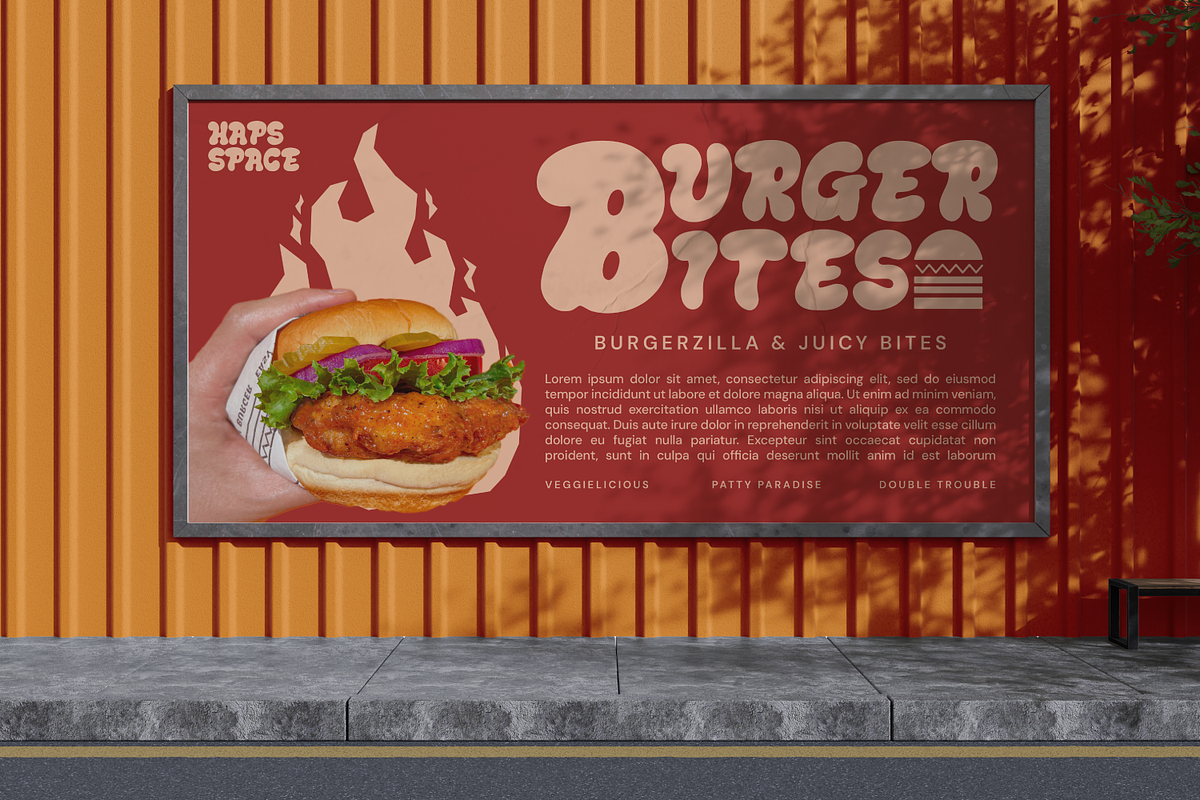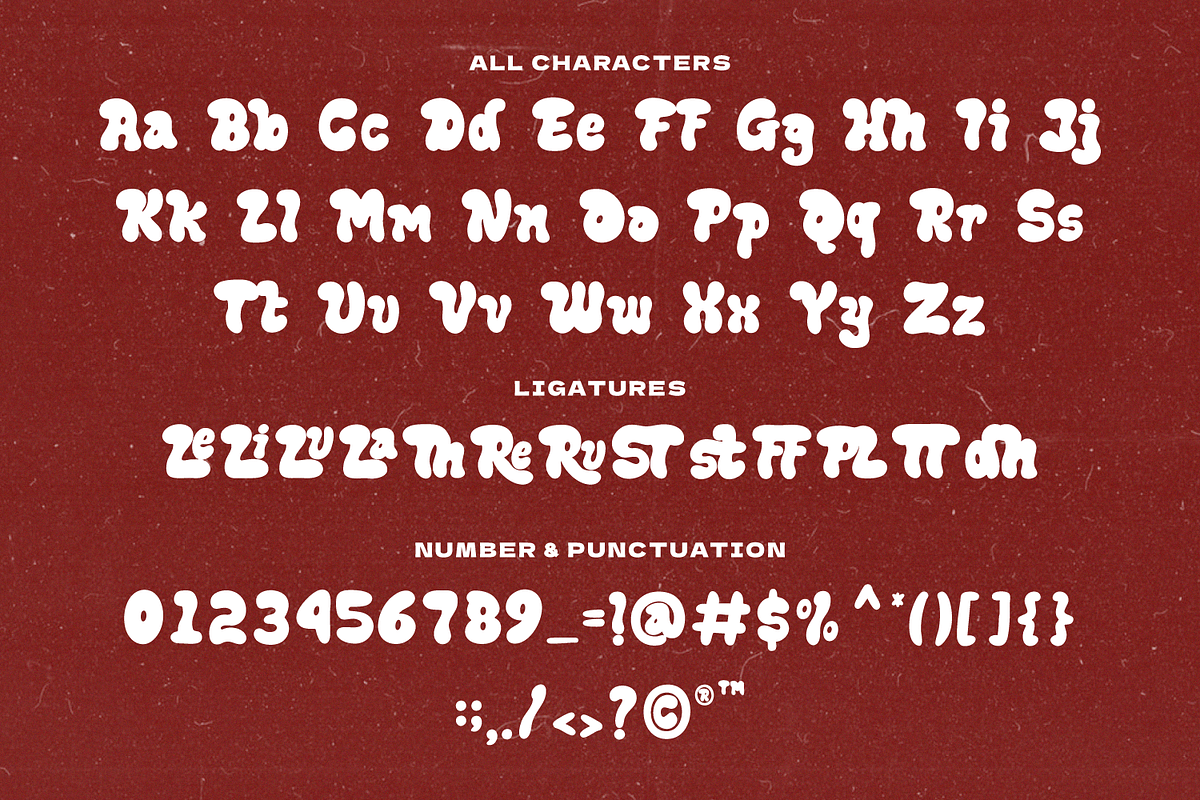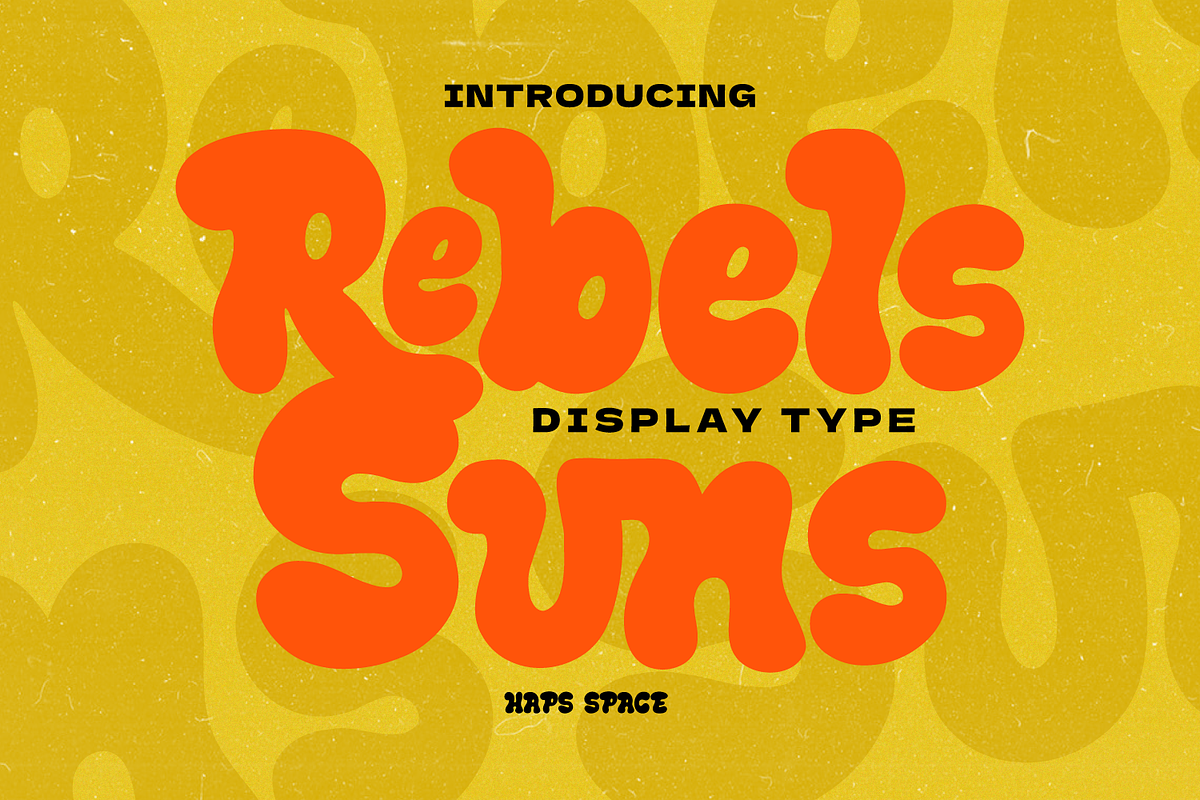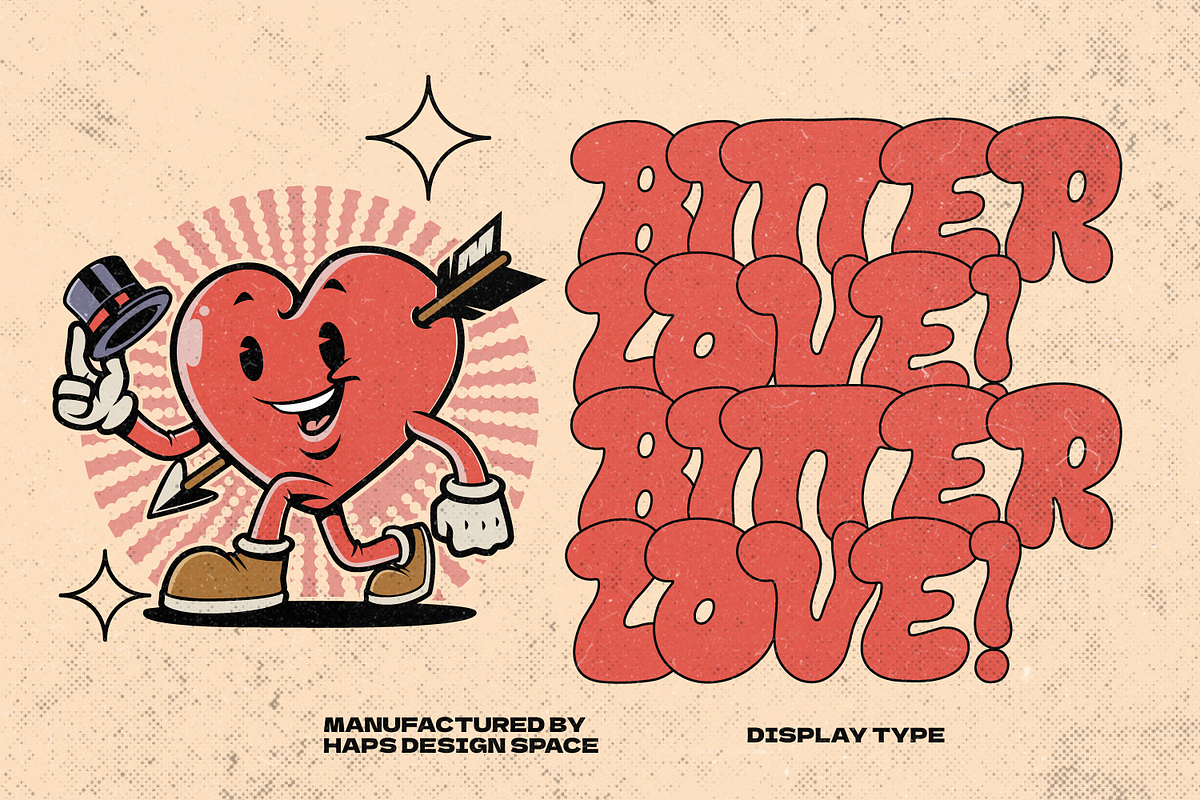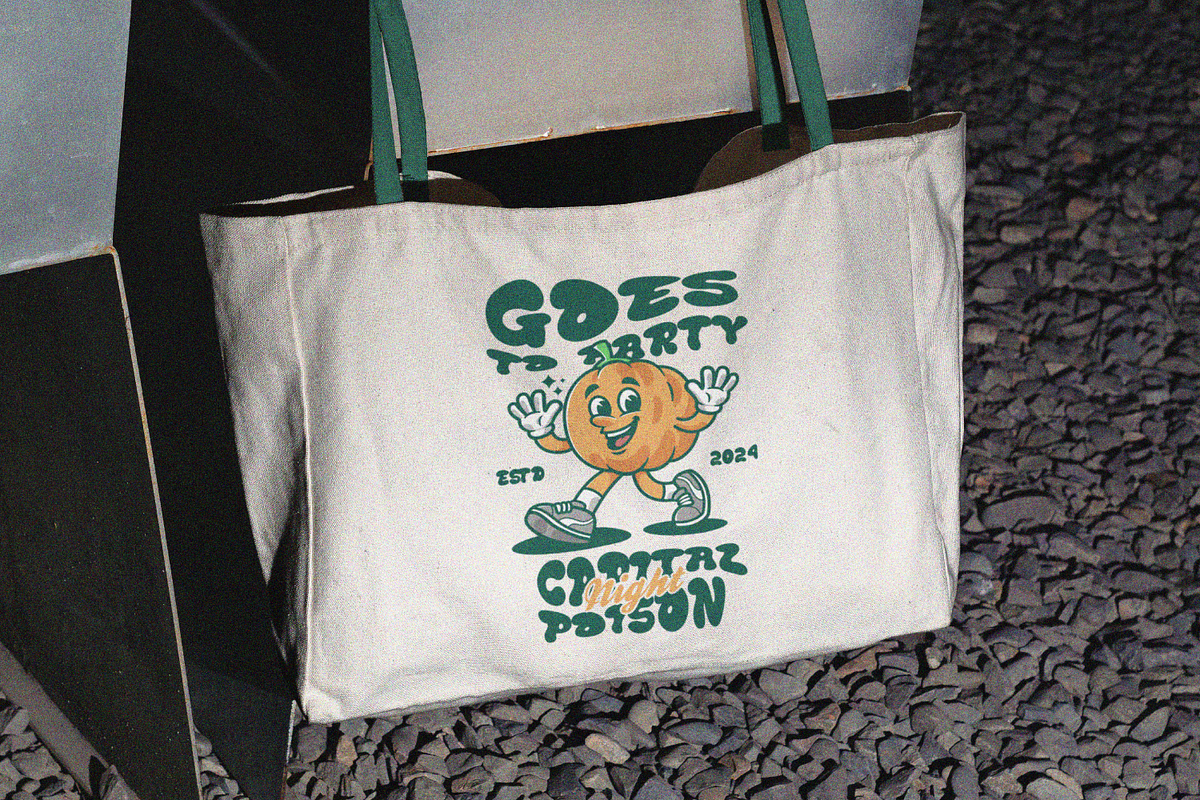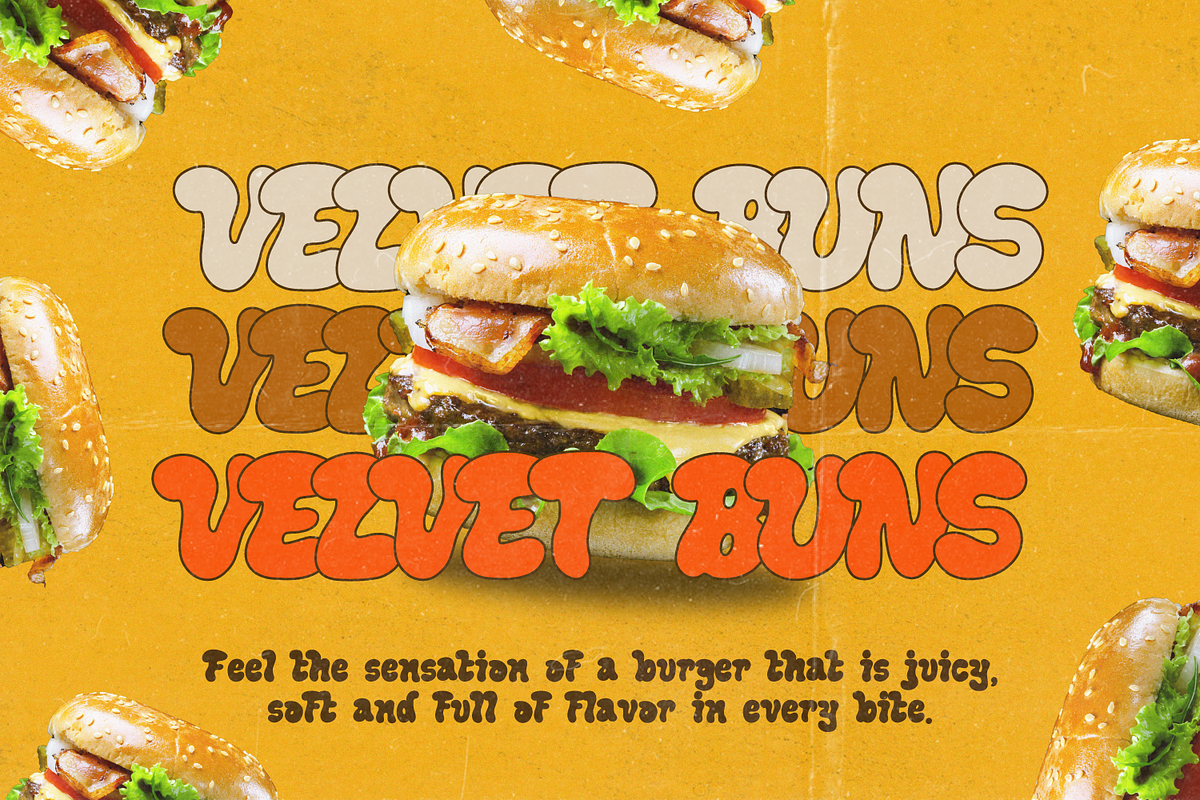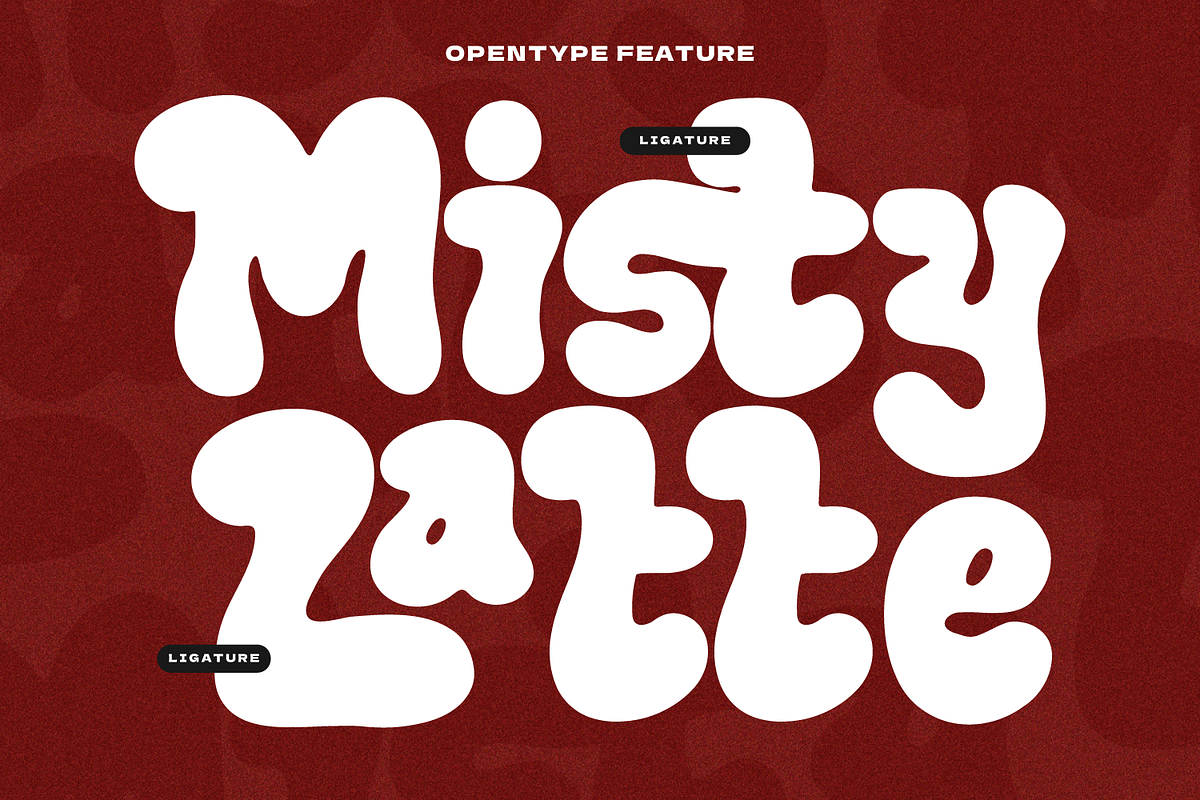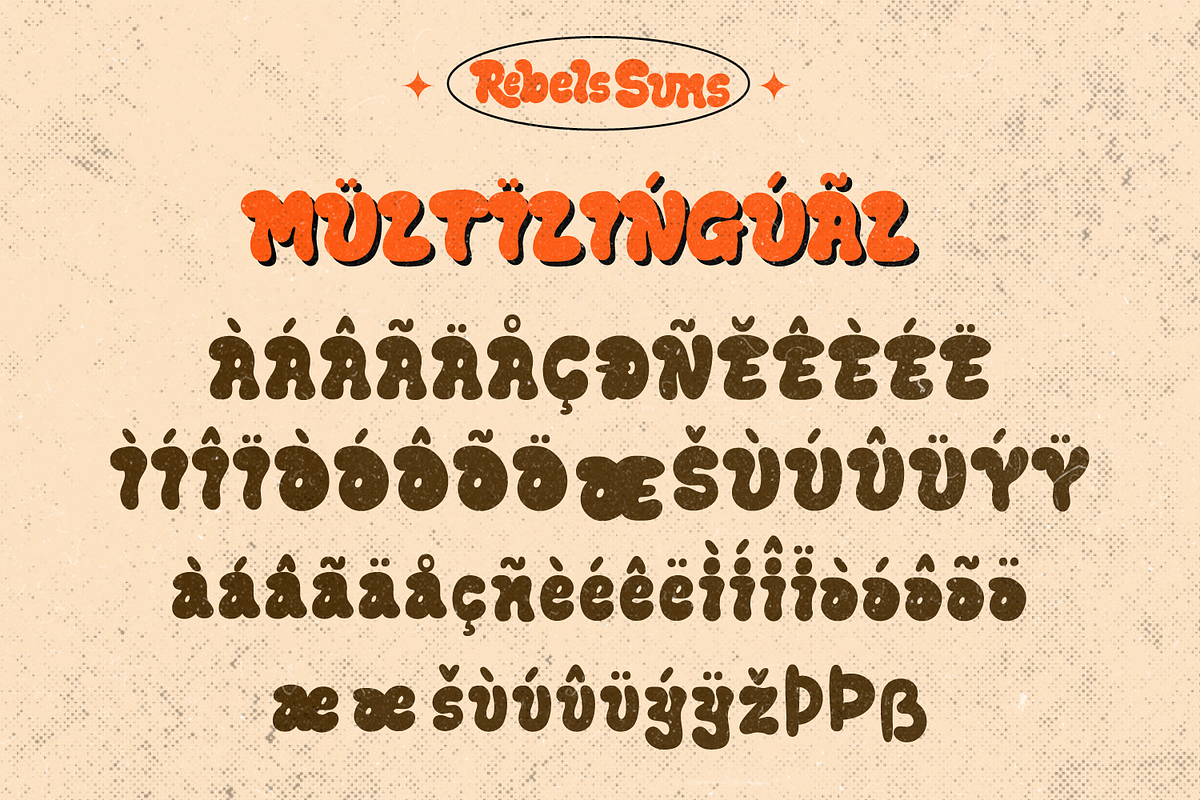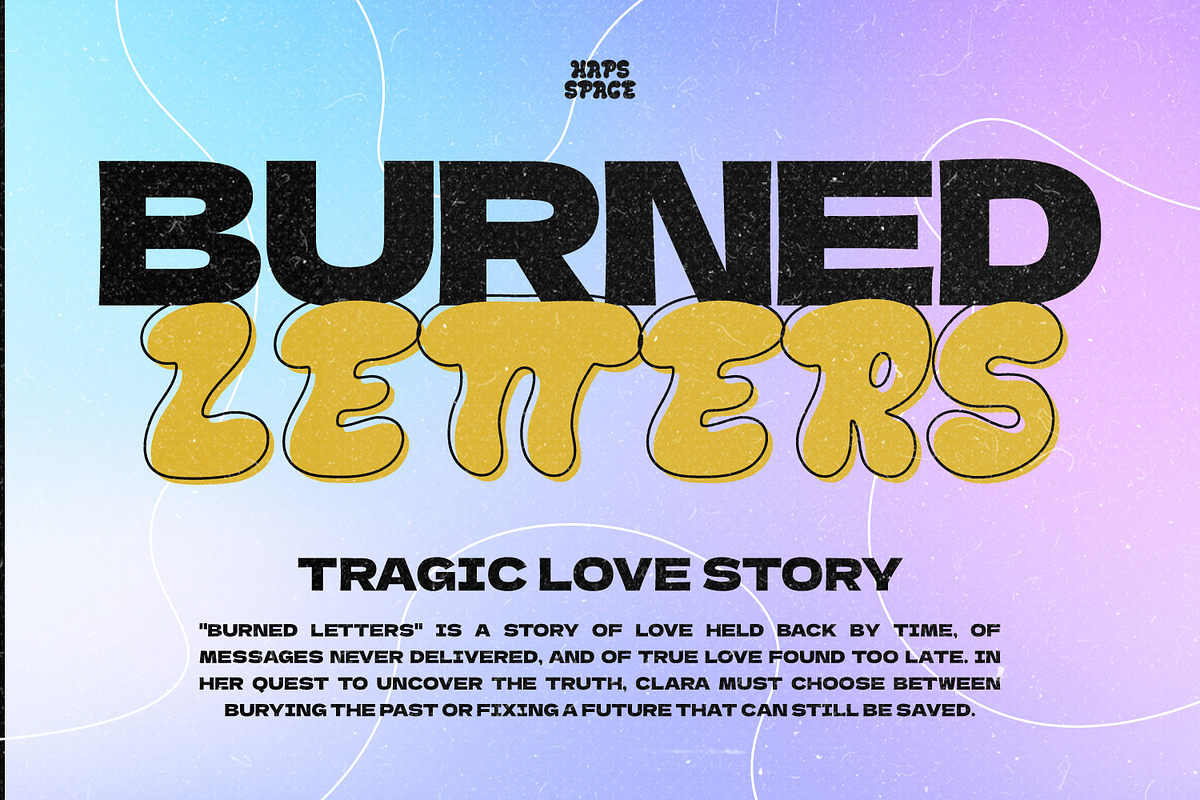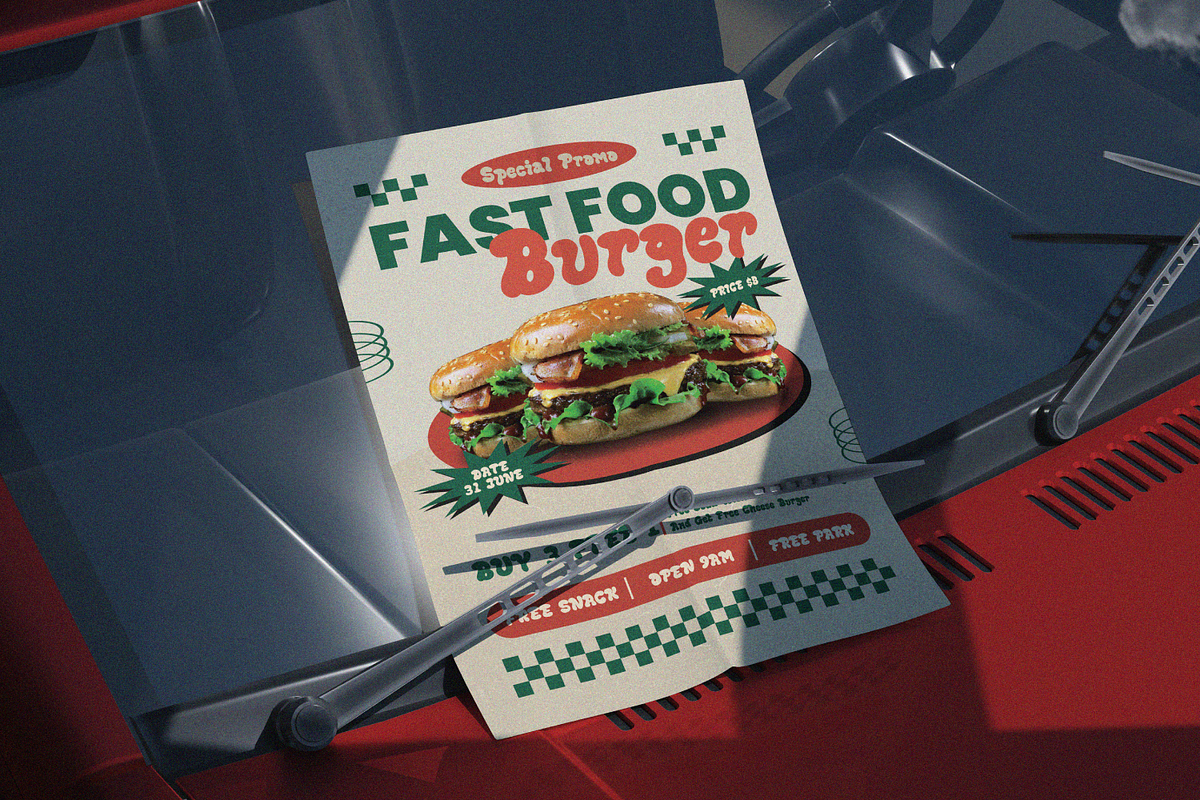
Rebels Suns Display Retro
Rebels Suns is a bold and playful retro display typeface that brings groovy vibes and funky attitude to your creative projects. Inspired by 70s psychedelic posters and bubble letter aesthetics, this typeface is perfect for music event flyers, bold branding, vintage packaging, children’s book covers, and colorful merch designs.
Featuring a full set of uppercase and lowercase letters, multilingual characters, ligatures, and punctuation, Rebels Suns is both expressive and versatile. Its chunky, flowing shapes make every word pop, making it ideal for projects that need a joyful, loud, and unforgettable typographic voice.
Whether you're designing a throwback poster or a modern brand with vintage charm, Rebels Suns is ready to make your message shine!
- OpenType multilingual support